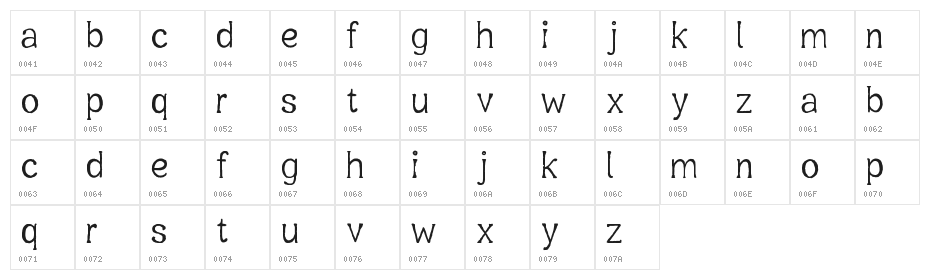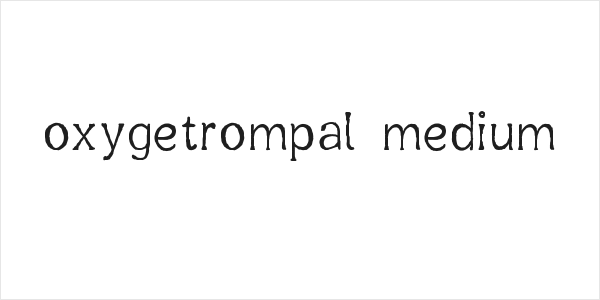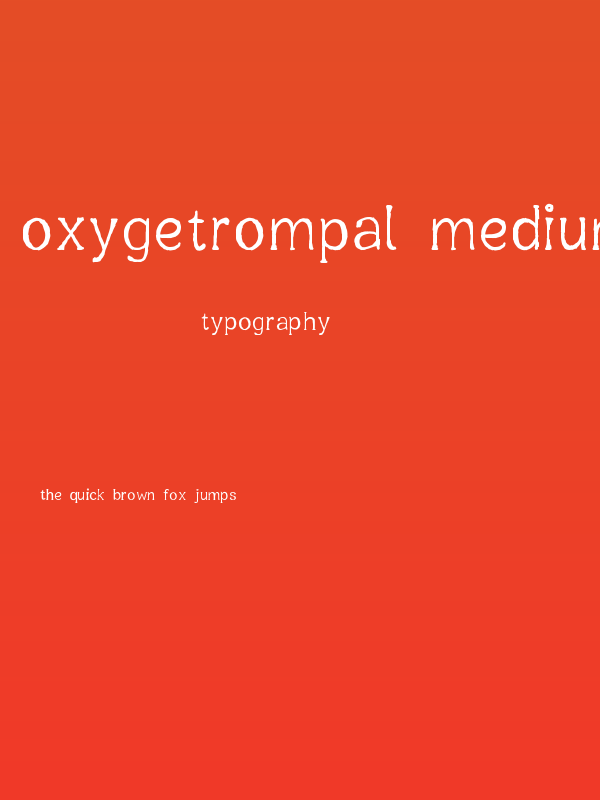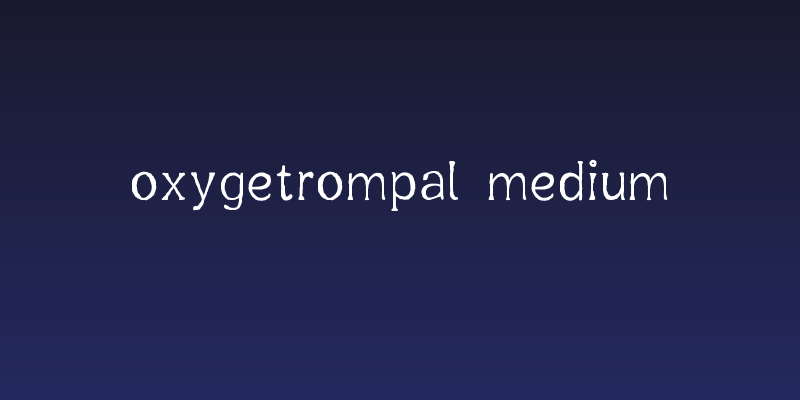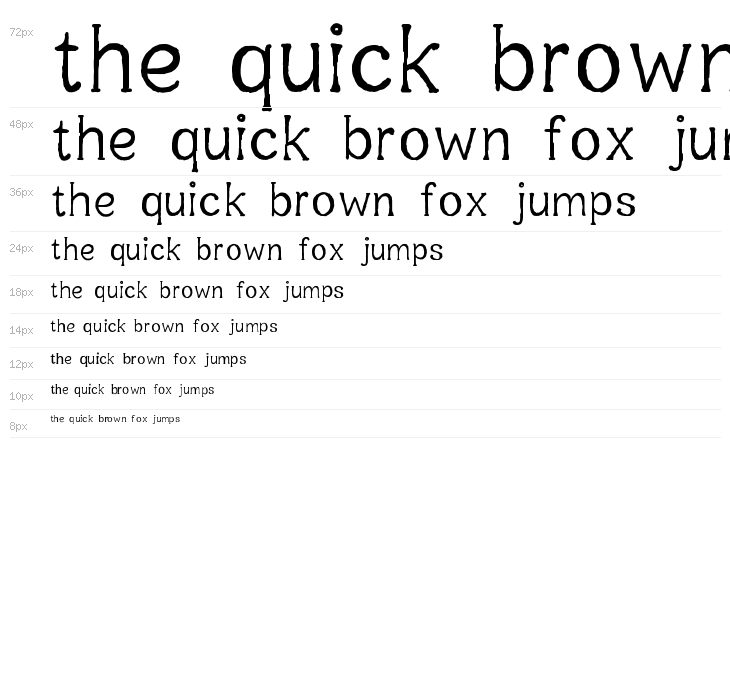
Oxygetrompal Medium Font
Oxygetrompal Medium Description
This font features a playful and slightly irregular design, characterized by its hand-drawn appearance. The letters have a whimsical quality, with varying stroke thicknesses and subtle imperfections that give it a unique charm. The rounded edges and slight slant add to its casual and approachable feel. It maintains a consistent baseline, ensuring readability while still offering a distinctive style. The font's organic look makes it suitable for projects that require a personal touch, such as invitations, greeting cards, and creative branding.
| Overall Style | Casual, Whimsical |
| Use Case | Headlines, Creative projects |
| Proposed Projects | Ideal for invitations, greeting cards, children's books, and creative branding. |